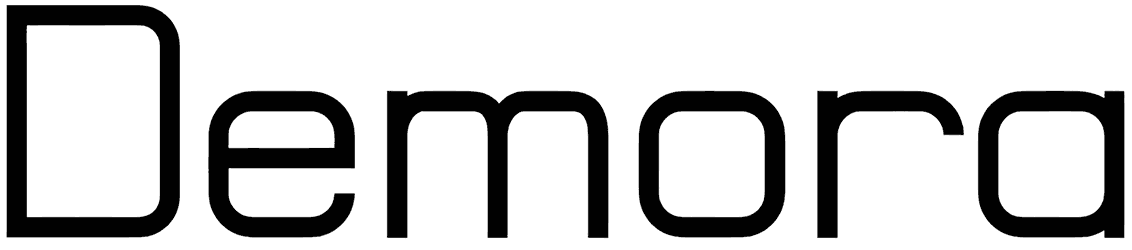
Demora Font
If you’re looking for a versatile font for your new design era, Demora is built to help. This sans-serif font has an innovative and forward-looking identity to create a powerful brand perfect for pairing with logo design, computer games, and website writing.
The lack of numbers in this square font does not detract from its values, and despite this lack, both 2 styles still have a lot of power to become your favorite font.